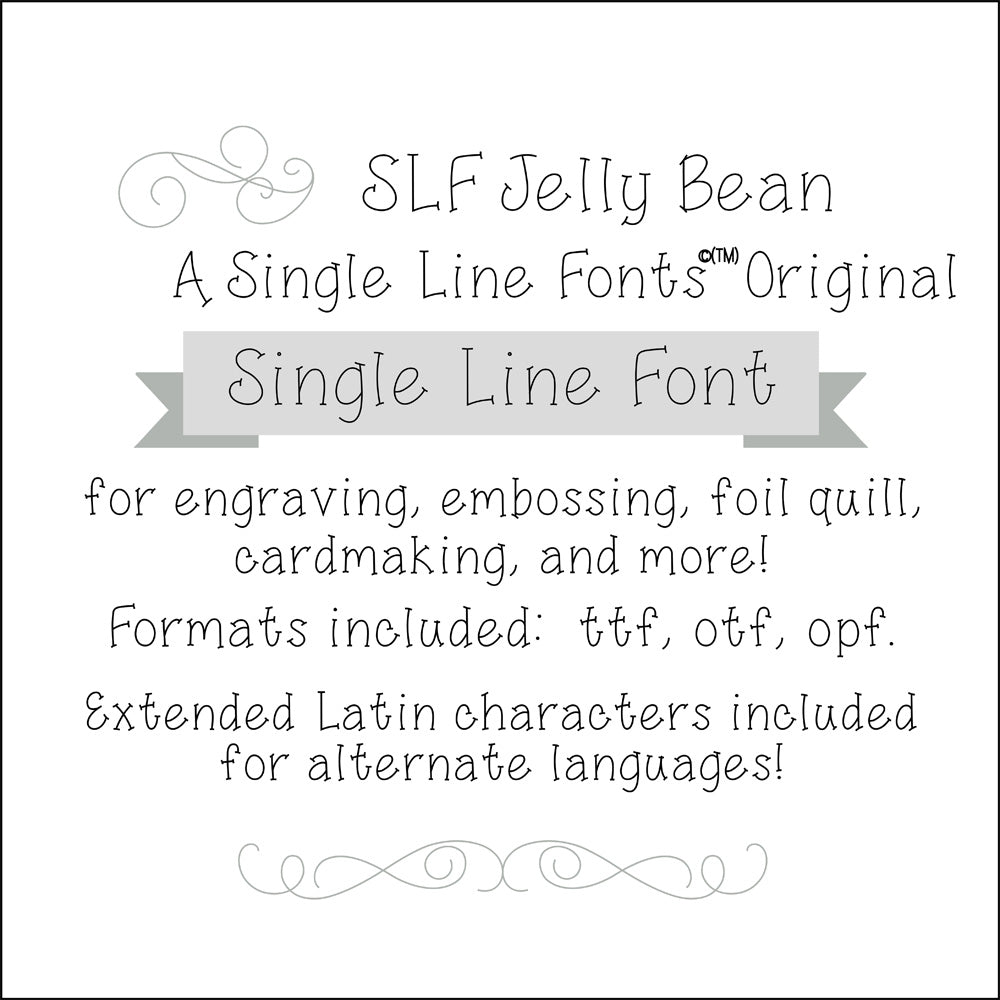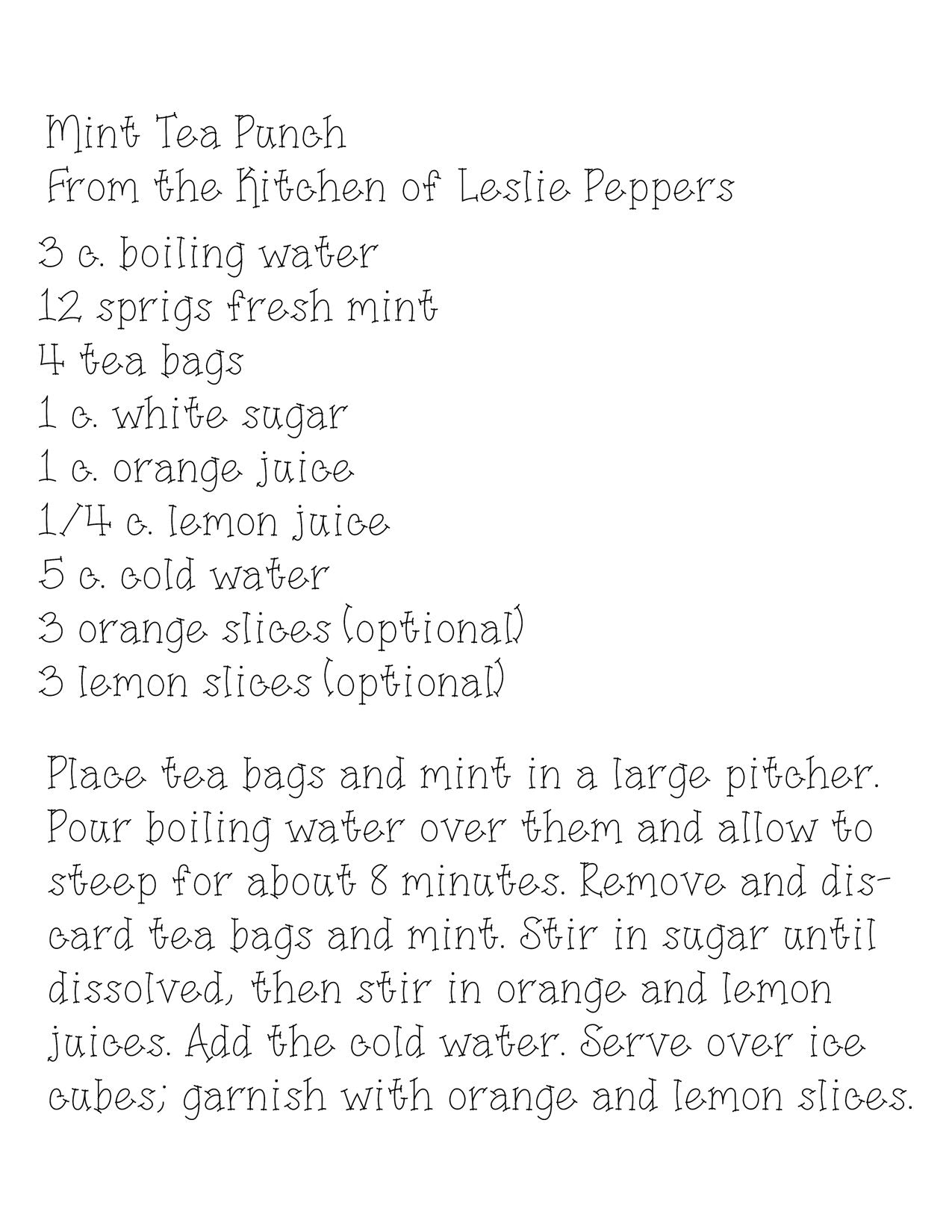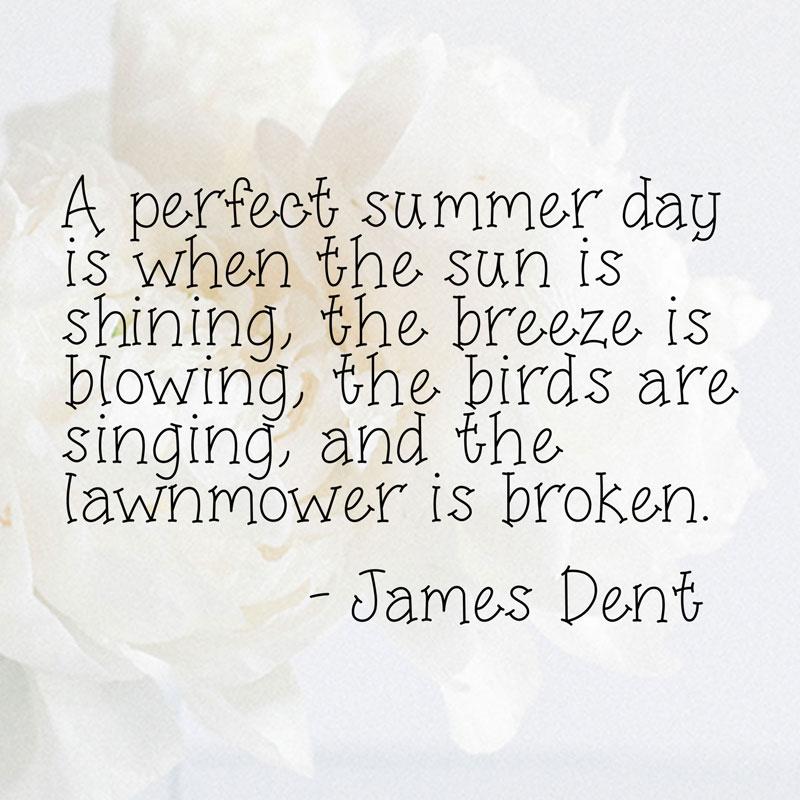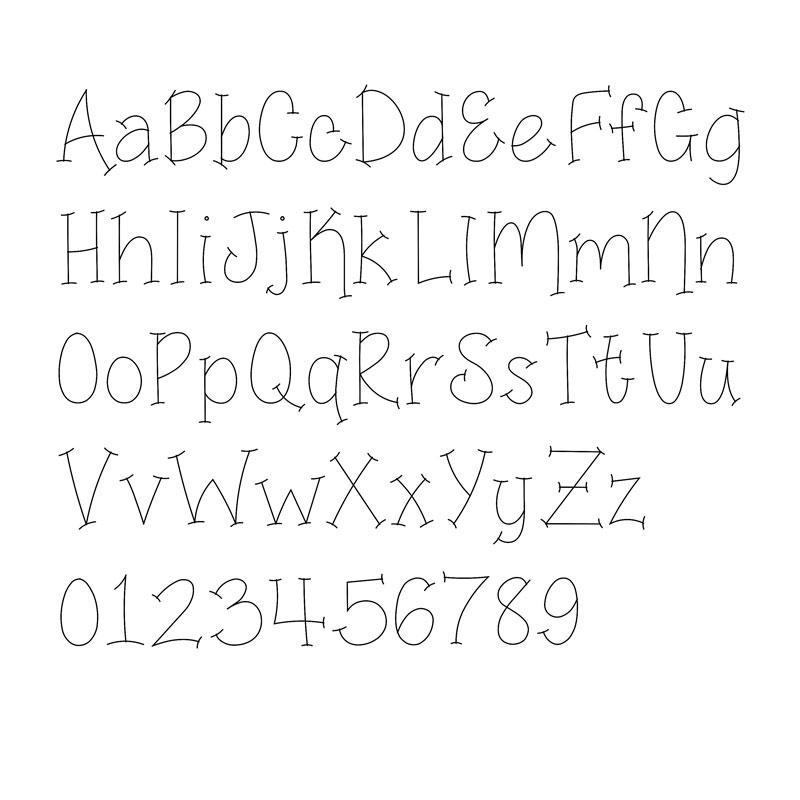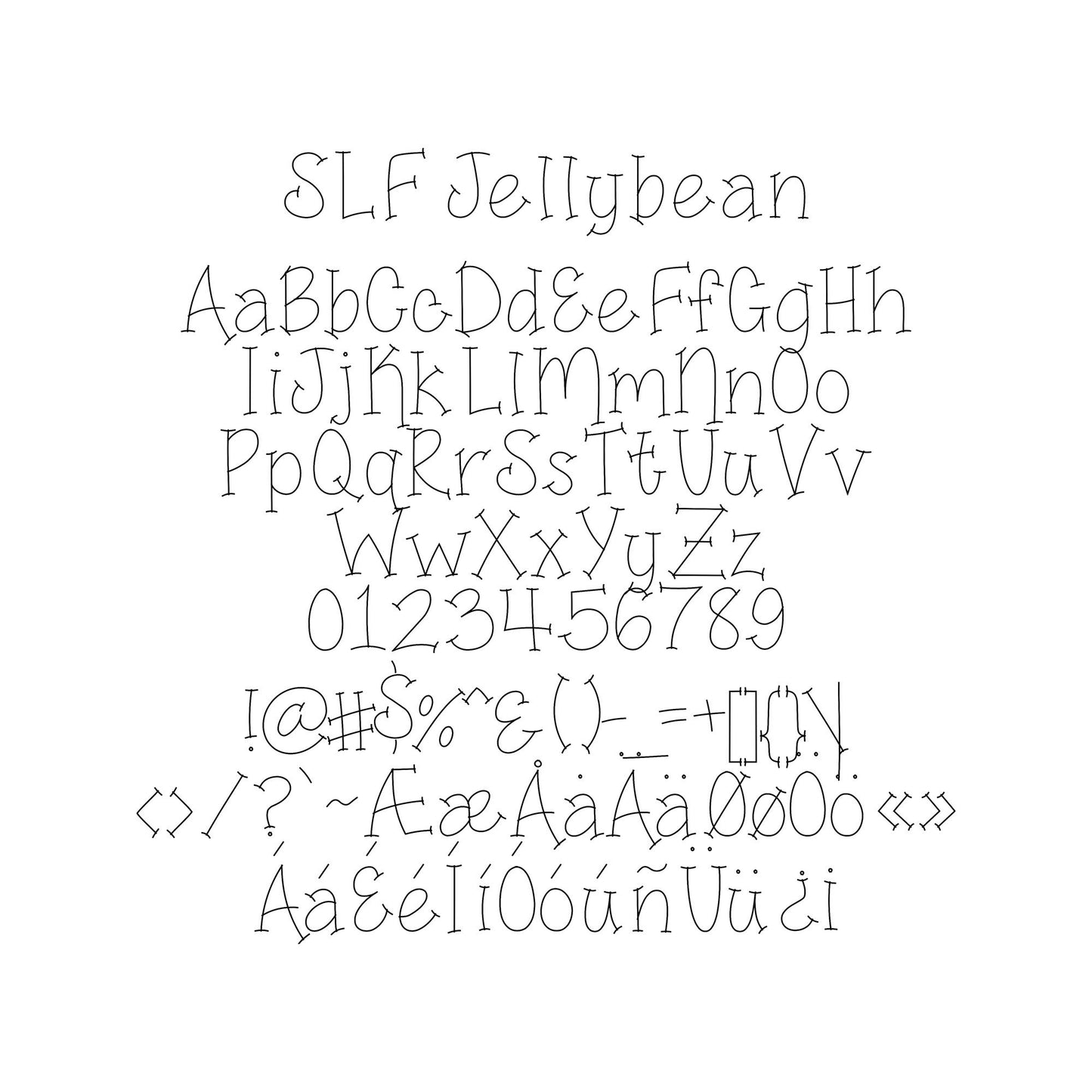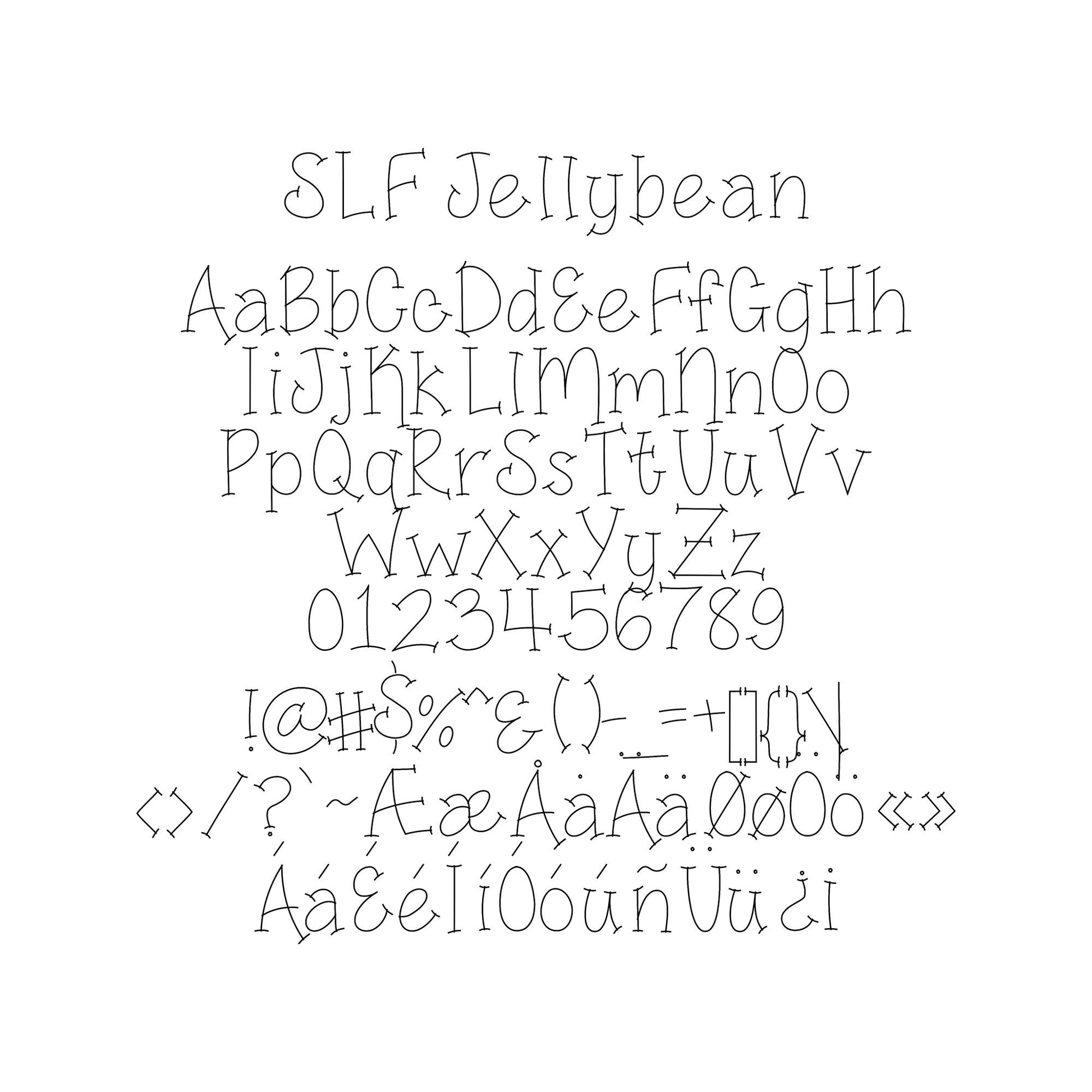
Jelly Bean
SLF Jelly Bean is the perfect go-to when you need something a little playful for added touches to cards and other items.
Spanish language characters are included in this font.